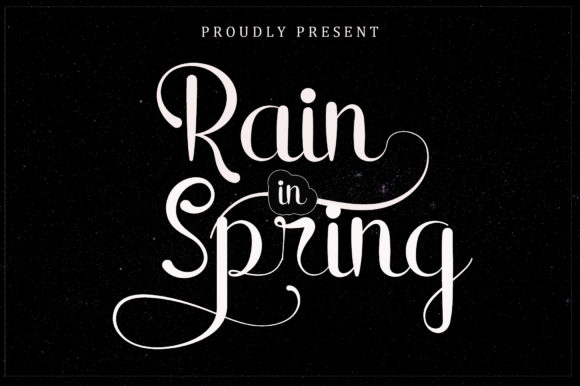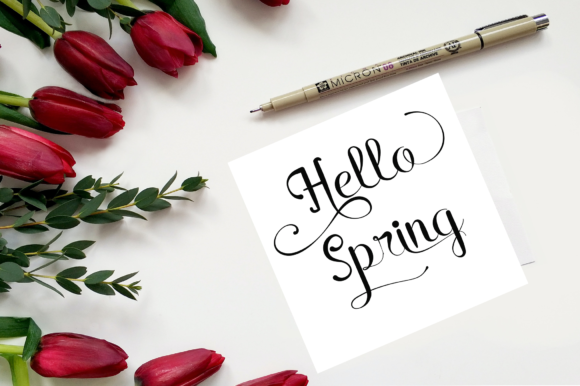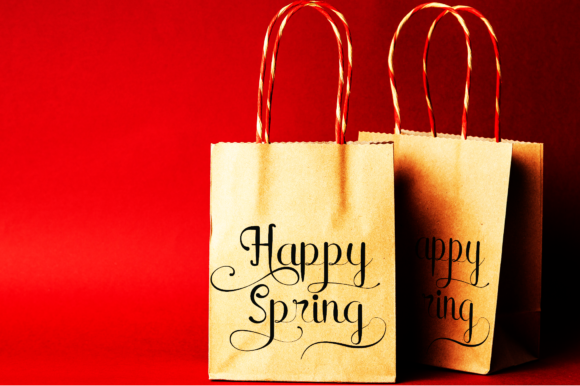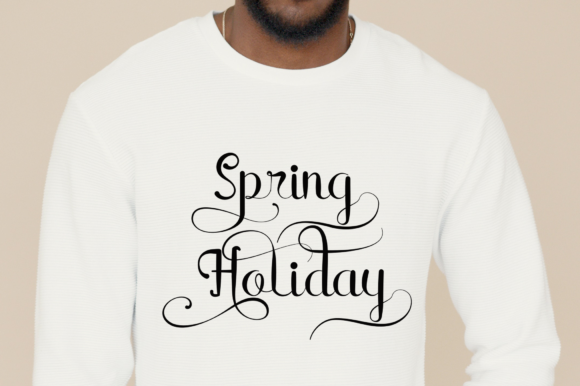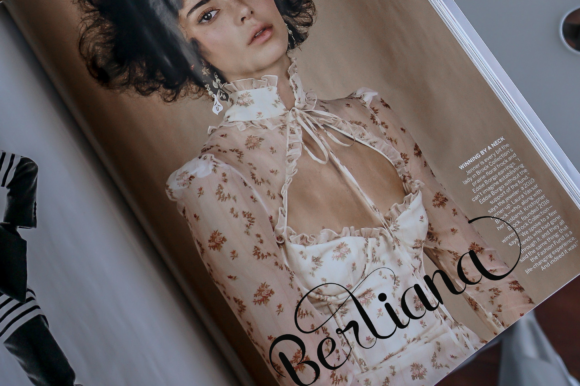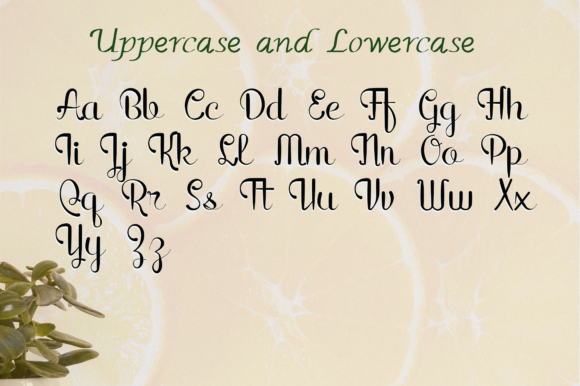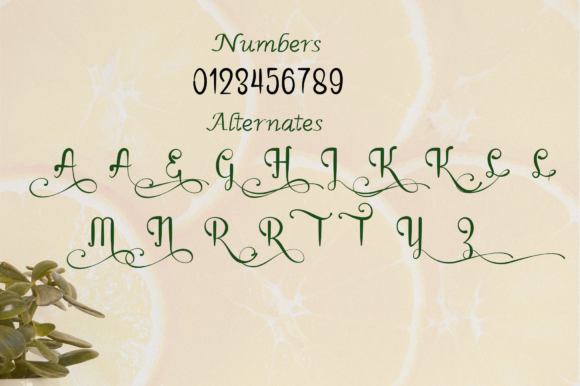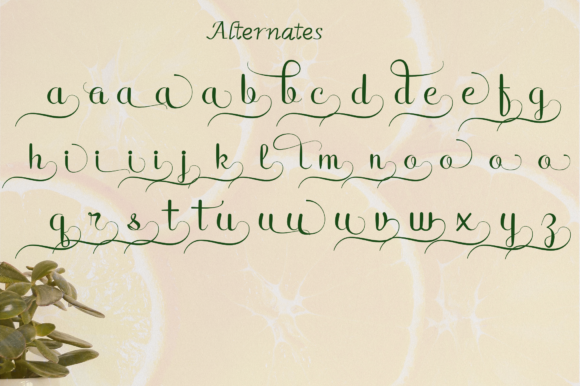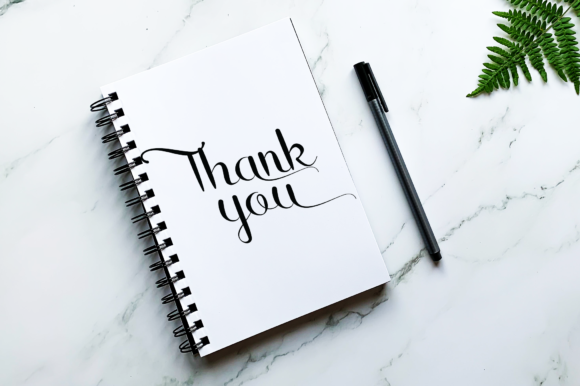
Rain in Spring Font
About Rain in Spring Font
Rain in Spring is a stylish modern script font that adds a touch of elegance and sophistication to your designs. With its flowing and graceful letterforms, this font is perfect for branding, signatures, wedding invitations, promotions, product packaging, and more.
The sleek and contemporary style of Rain in Spring makes it versatile and adaptable to various design needs. Its clean and refined letterforms exude a sense of professionalism and refinement, making it suitable for both formal and casual designs.
The classic calligraphy inspiration behind Rain in Spring gives it a timeless and romantic charm. The carefully crafted letterforms mimic the fluid strokes of a calligraphy pen, creating a sense of elegance and grace in every character. Whether used in a logo, as a headline, or in body text, this font adds a touch of sophistication to your design projects.
Rain in Spring is designed to elevate your design projects to the highest level. Its stylish and refined appearance instantly adds a sense of luxury and elegance to any design. Whether you’re creating wedding invitations, promotional materials, or packaging for your products, this font will make your designs stand out and leave a lasting impression.
The versatility of Rain in Spring allows it to be used in various contexts and design applications. Its clean and legible letterforms ensure readability, while the subtle flourishes and swashes add a touch of personality and style. This font can be scaled up or down without losing its visual appeal, making it suitable for both large and small design elements.
In summary, Rain in Spring is a stylish modern script font that brings elegance and sophistication to your designs. With its classic calligraphy-inspired letterforms, it adds a touch of luxury and refinement to any project. Whether used in branding, invitations, promotions, or packaging, this font will elevate your design to the highest level and leave a lasting impression.